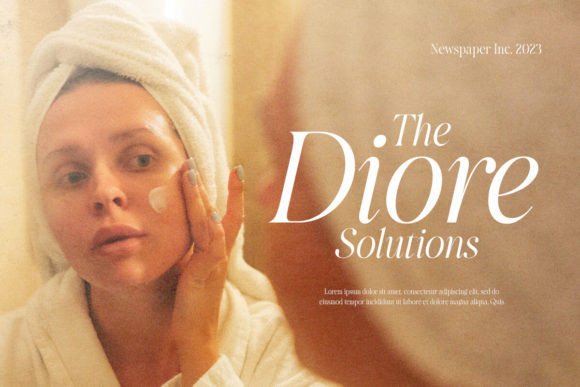
Beige Culture is a classic serif family that have modern, luxurious, and glamour looks. With true italic version, you can use this font family for any purposes such as wedding invitations, logo, and branding. And if you are searching for timeless display serif, this font might suitable for you. Beige Culture also support multi language!
Beige Culture Font